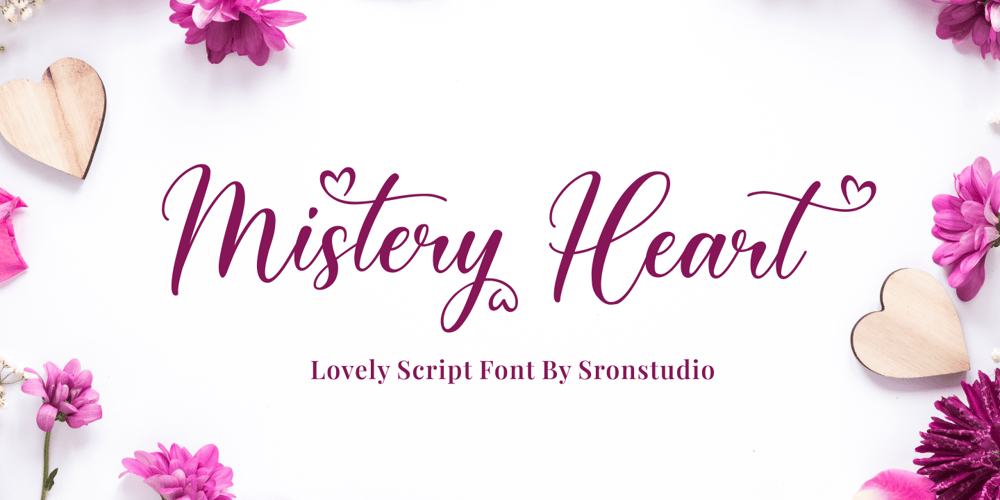
Mistery Heart Font Family was designed by Muhamad Yusron Billah and published by Sronstudio. Mistery Heart contains 1 styles and family package options. Mistery Heart – A lovely Calligraphy Font perfect for crafting, branding, invitation, stationery, wedding designs, social media posts, advertisements, product packaging, product designs, label, photography, watermark, special events, or anything.Features: Uppercase and lowercase letters Swash alternates ( Beginning, Middle, Ending ) Multilingual symbols, numerals, and punctuation. How To Access Alternate Swashes?You can read this article: https://helpx.adobe.com/illustrator/using/special-characters.htmlFollow Instagram: @sronstudioThank You!